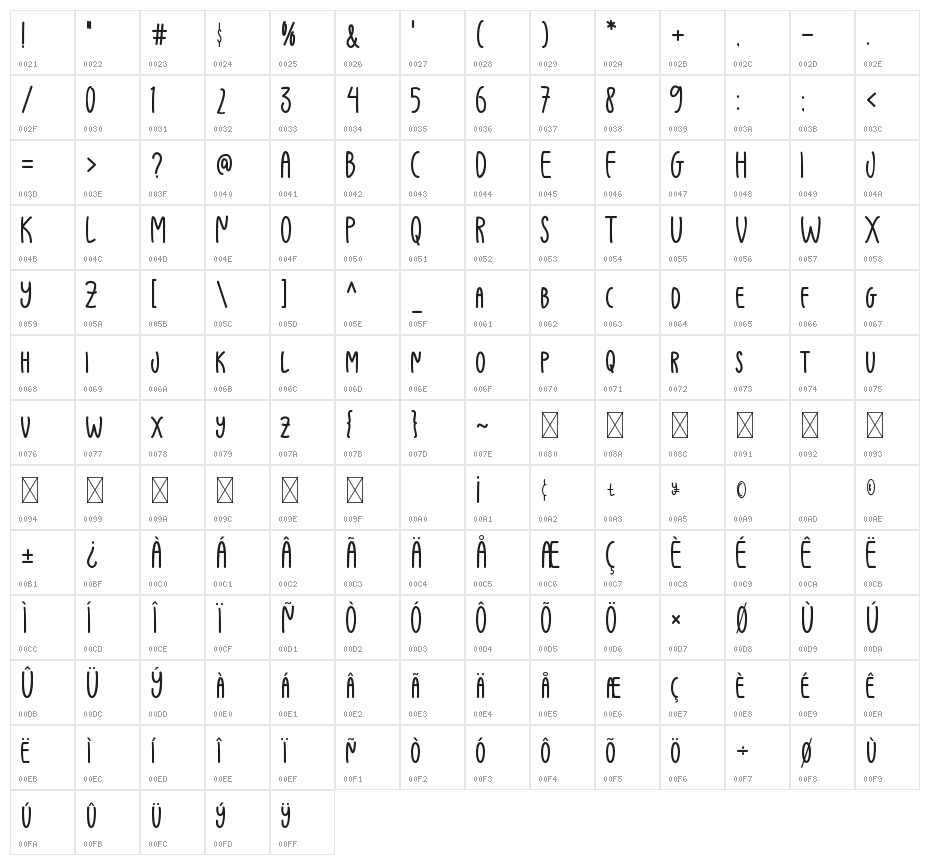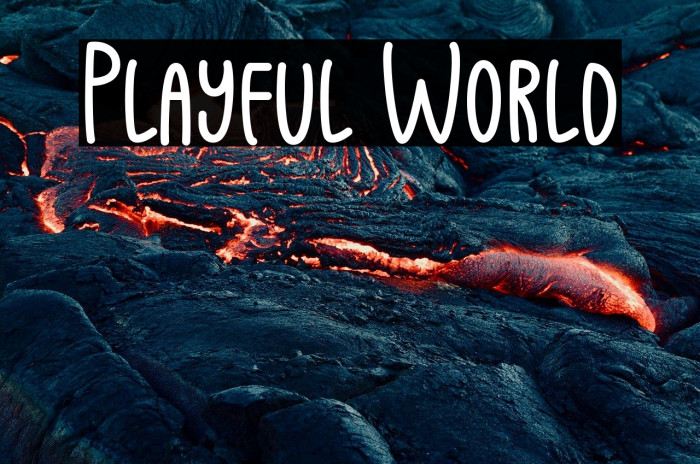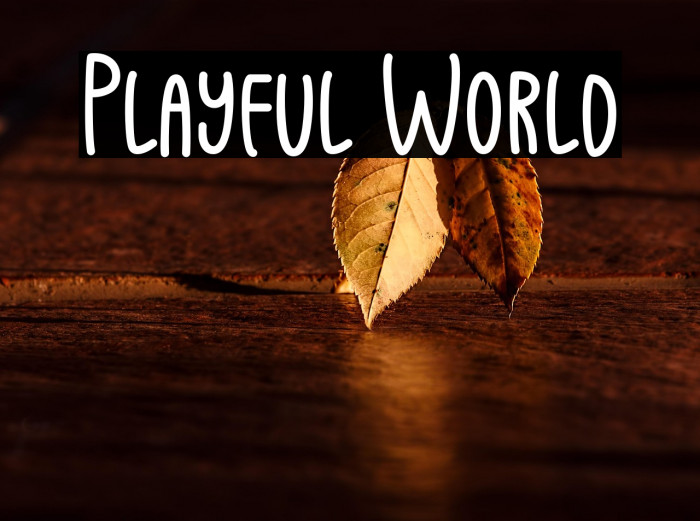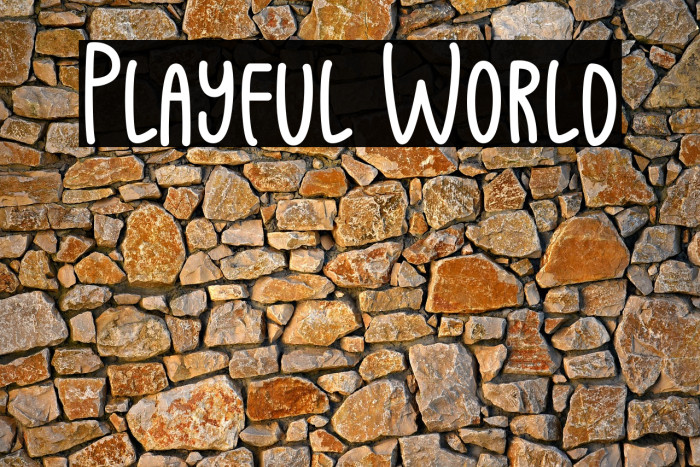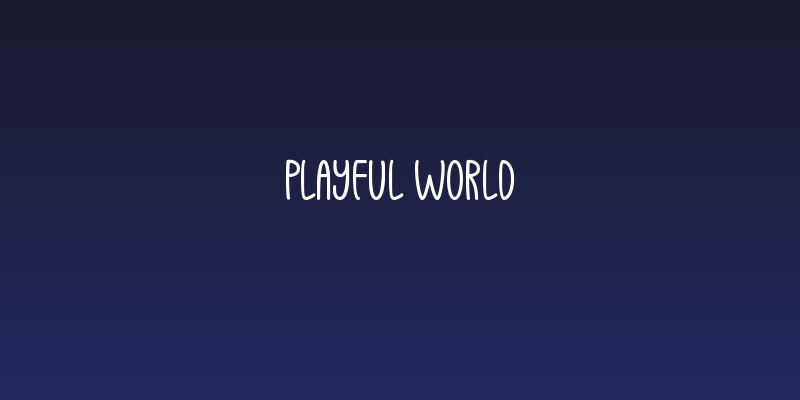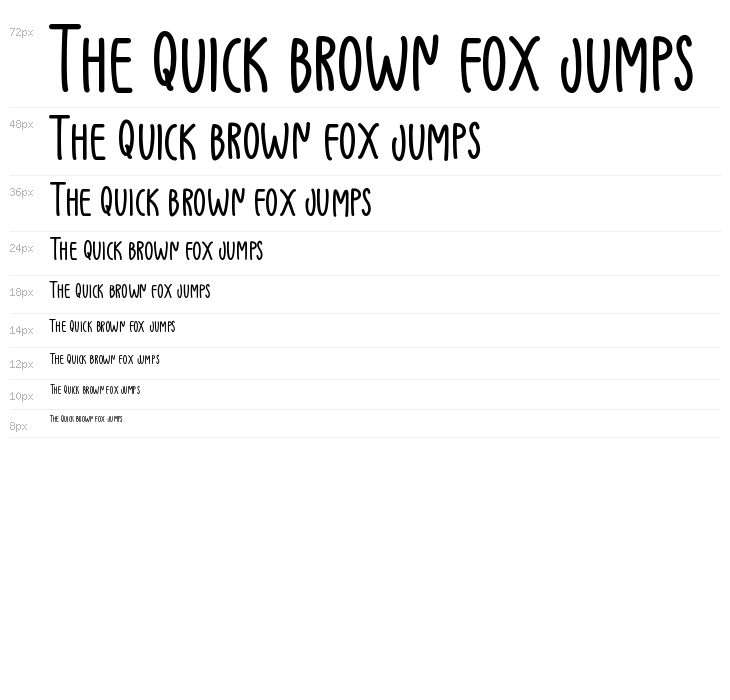
Playful World Font
Playful World Description
This font exudes a playful and whimsical charm, characterized by its rounded and slightly irregular letterforms. The strokes are consistent in width, giving it a smooth and friendly appearance. The uppercase and lowercase letters maintain a uniform height, which adds to its casual and approachable style. The numbers and special characters follow the same playful design, making it suitable for creative and informal projects. Its simplicity and readability make it versatile for various uses, while the unique character shapes add a touch of personality.